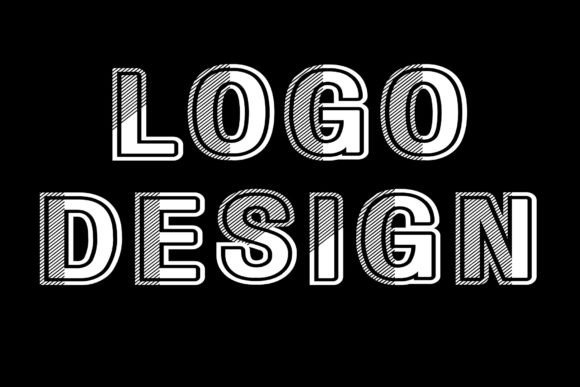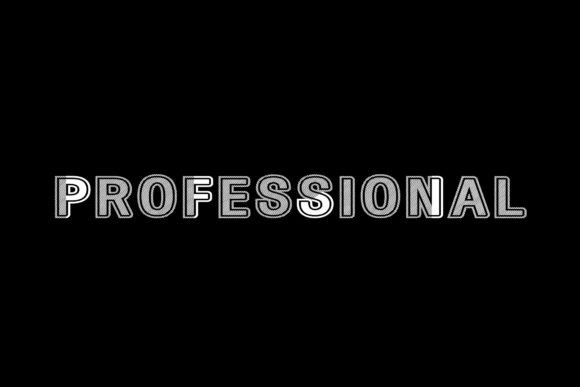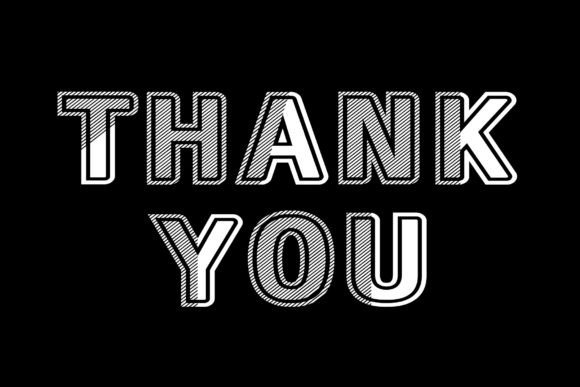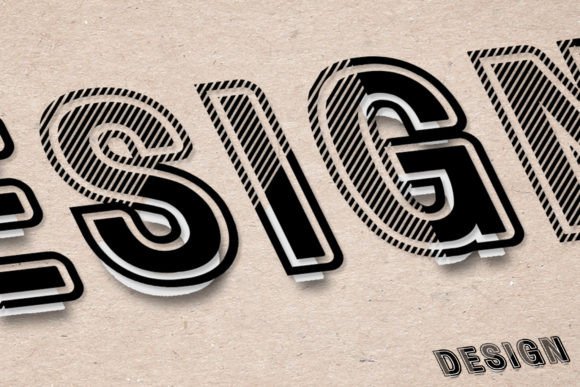
Introducing Design Font: Elevate Your Designs with a Simple yet Powerful Typeface
In the world of design, the right font can make all the difference. A well-crafted typeface can elevate your project, convey your message with clarity, and leave a lasting impression on your audience. If you’re on the hunt for a font that embodies simplicity, cleanliness, and versatility, look no further than Design Font. This casual display font boasts an undeniably clean feel, making it perfect for both formal and non-formal designs.
The Beauty of Simplicity
Design Font’s beauty lies in its simplicity. With its neat and beautiful arrangement of letters, this typeface exudes a sense of elegance and sophistication. The clean lines, subtle curves, and carefully crafted letterforms come together to create a visually stunning font that’s sure to capture attention. Whether you’re designing a logo, brochure, or website, Design Font provides a solid foundation for your creative vision.
Key Features of Design Font
- Clean and Simple Design: Design Font’s minimalist approach makes it perfect for designs that require a subtle yet impactful touch.
- Versatile: This font is suitable for both formal and non-formal designs, making it a valuable addition to any designer’s toolkit.
- Beautiful Letter Arrangement: The carefully crafted letters are arranged in a way that creates a visually appealing rhythm, making your text a joy to read.
- Ease of Use: Design Font is easy to read and works well in various sizes, making it perfect for body text, headings, and titles.
Use Cases for Design Font
Design Font’s versatility makes it suitable for a wide range of design projects. Here are some use cases to get you started:
- Branding and Logos: Create a lasting impression with a custom logo that showcases your brand’s personality.
- Print Materials: Elevate your brochures, flyers, and business cards with a clean and sophisticated font.
- Web Design: Use Design Font to create stunning website headers, titles, and body text that engage your audience.
- Social Media Graphics: Add a touch of elegance to your social media posts, stories, and graphics.
Tips for Using Design Font Effectively
To get the most out of Design Font, here are some tips to keep in mind:
- Experiment with Sizes: Play with different font sizes to create visual hierarchy and emphasize important information.
- Pair with Other Fonts: Combine Design Font with other fonts to create a unique and visually appealing typography.
- Use Color Wisely: Select colors that complement the font and enhance the overall aesthetic of your design.